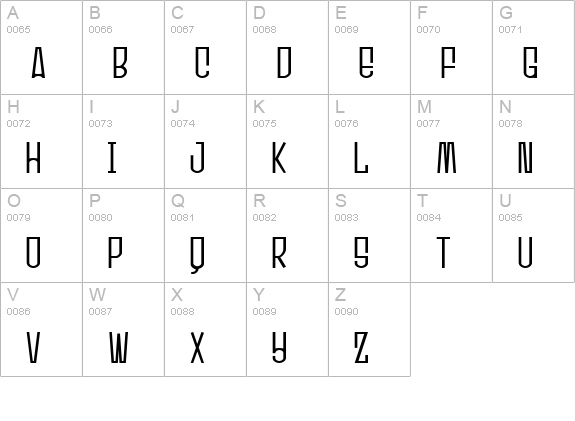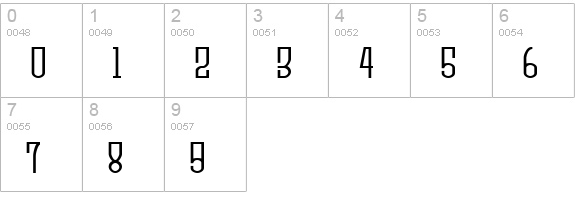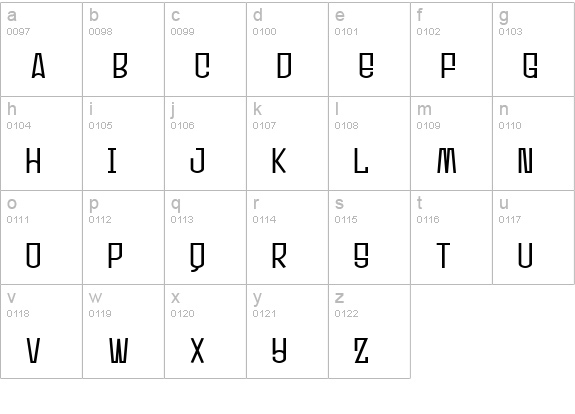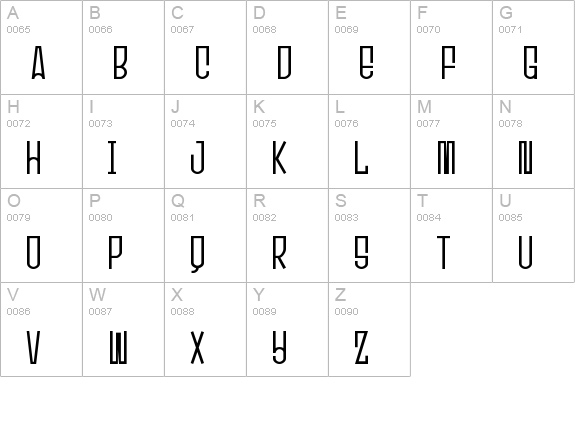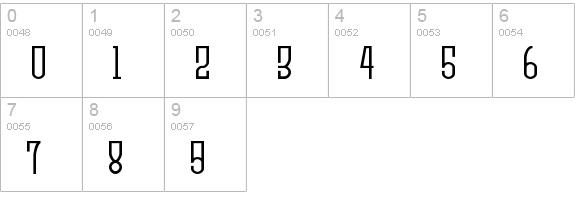
Ultrasonik Font Details
Ultrasonik font is a mesmerizing typeface that captivates with its sleek and modern design. With its clean lines and elegant curves, this font is perfect for adding a touch of sophistication to any creative project. The versatility of Ultrasonik font makes it suitable for a wide range of applications, from branding and logo design to headlines and titles. Its bold and distinct characters make a strong impact, while its legibility ensures ease of reading. What sets Ultrasonik font apart is the fact that it is freely available to download at FontsMarket.com. This means that you can access this incredible font without any cost, allowing you to enhance your design projects without breaking the bank. Whether you are a professional designer or a hobbyist, Ultrasonik font is a valuable addition to your font library. Its effortless style and exceptional quality will elevate your designs to new heights, leaving a lasting impression on your audience. Download Ultrasonik font today from FontsMarket.com and unlock a world of creative possibilities. With its free availability, you can explore the limitless potential of this font and create stunning visuals that truly stand out. Don't miss out on this opportunity to enhance your designs with the elegance and charm of Ultrasonik font.